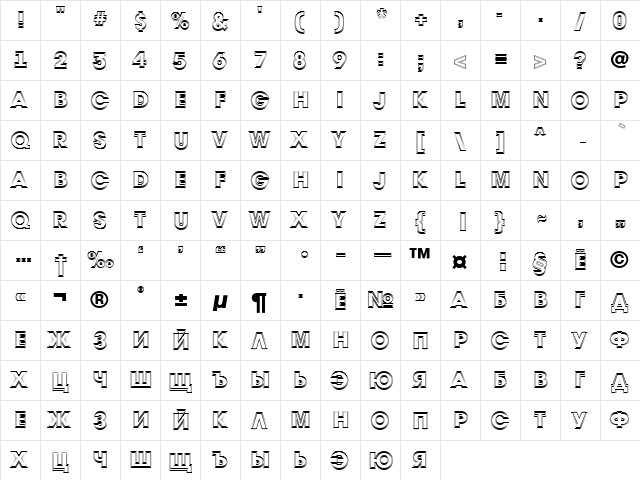
a_AvanteTitul2Otl Heavy
Design Context for a_AvanteTitul2Otl Typeface
a_AvanteTitul2Otl is a composed and adaptable typeface that performs quietly and consistently across a wide range of design contexts.